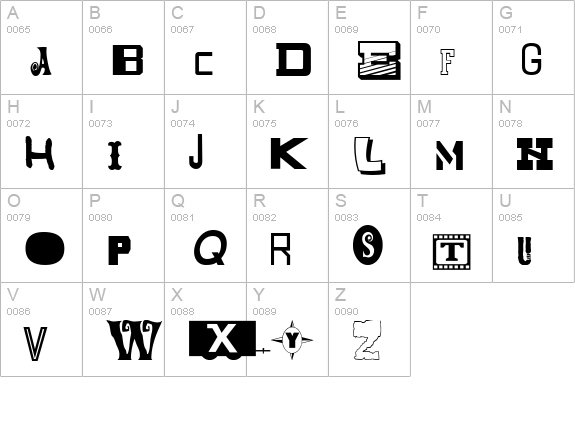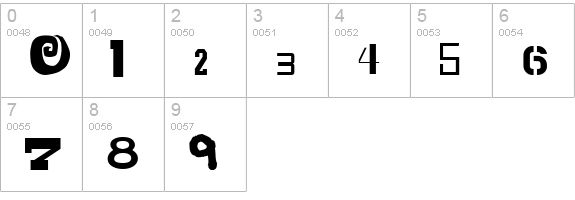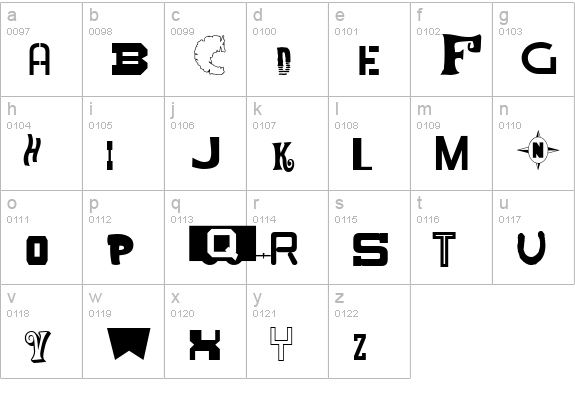
Mixed Messages JL Font Details
Mixed Messages JL font is a unique and versatile typeface that combines a mix of modern and vintage elements, creating a visually appealing and dynamic design. Its playful yet sophisticated look makes it perfect for a wide range of projects, from branding to editorial design to social media graphics. This font is available for free download at FontsMarket.com, allowing designers and creatives to easily access and use it in their projects without any cost. With its distinctive character and eye-catching style, Mixed Messages JL font is sure to make a statement and add a touch of creativity to any design. Whether you're looking to create a bold headline or add a subtle touch of personality to your text, this font has you covered. Download it now and start adding some mixed messages to your designs!